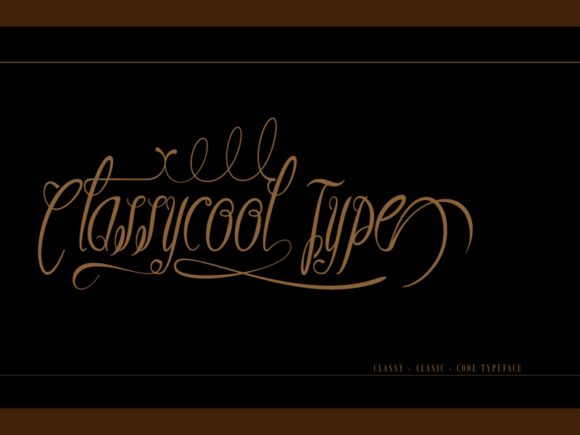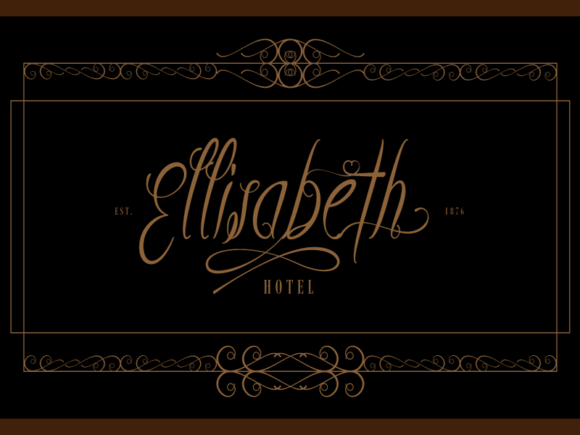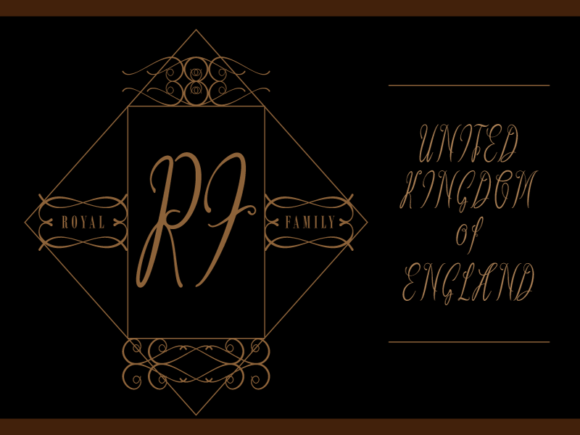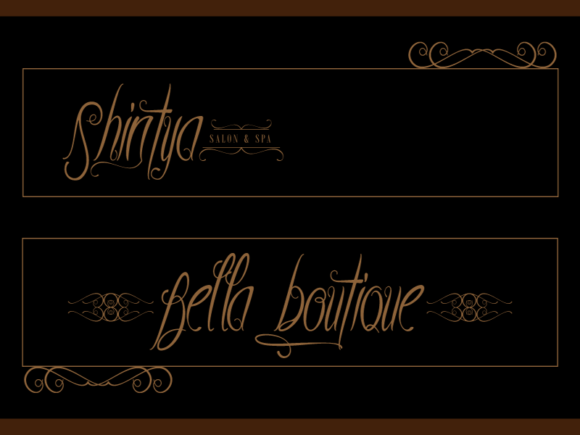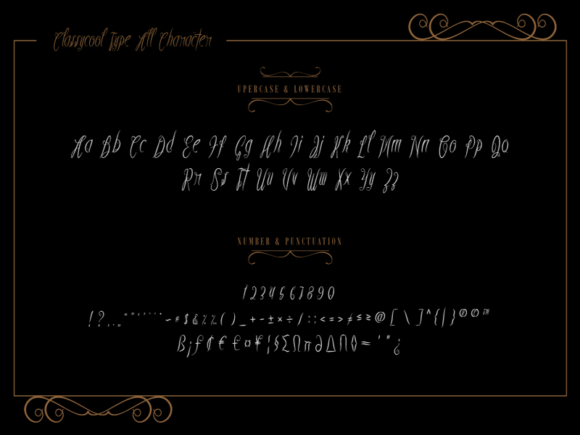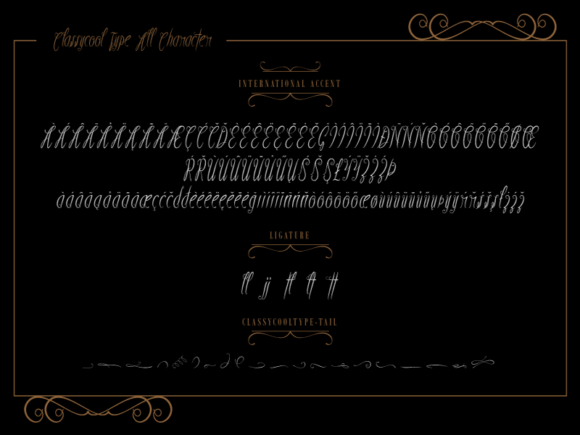
Classycool Font
About Classycool Font
Classycool is a classy and elegant handwritten font. Fall in love with its authentic feel and use it to create gorgeous wedding invitations, beautiful stationary art, eye-catching social media posts, and cute greeting cards.